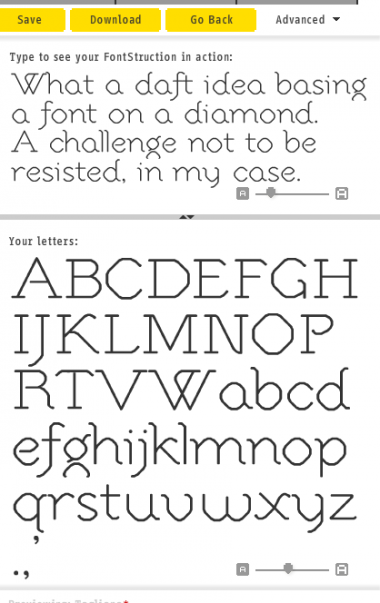
This one is sidetracking me from finishing Mocktura properly. Story of my life.
This is great. The lowercase has a very nice cursive feeling, while the caps has classic roman proportions.
Did you try a less exotic g? :-)
Well... I had the same "bumping into the ceiling" problem with the g that I'm having with the 8 -- but in this case digging through the floorboards!
A less eccentric fix would be to make a single bowl g, but this font is determinedly whimsical, so I'm reluctant...
Of course I'll give in and do a "proper" g eventually. It does get old after a paragraph or so.
Do you think I can fudge the rules a bit with my 8 glyph? It's occupying a baseline all its own (hah hah!) at the moment but I can't compress it much more before it loses any link to its siblings altogether.
There's always one child that acts up...
Ohh! Will you look at that W. How whimsical. You should be daft more often. ;)
PS: Thank you for leaving the 9 unfinished.
Congratulations! FontStruct Staff have deemed your FontStruction worthy of special mention. “Tagliana” is now a Top Pick.
Regarding the g – you could try an open 'tail' like in FF Signa. And regarding the 8 – maybe you can bring it up to the baseline, and extend the 'ascender' of the 6 to match?
they keep getting smoother and smoother. the B and R are smoooth. W is like thalamic said - wicked. another unique and legible font. congrats :)
these faces you've made are ill.
I'm not up with the play with modern usage: ill in the sense of wicked, dope or sick, or just ill?
Somehow I missed this gem: a rare diamond. An instant FS classic. 10/10
It looks good ... then you look at the sample text and - it looks great!
I really must get round to...
I think intaglio was doing 2.0 before it was possible. :-)
Wow. That is a Courier. XD